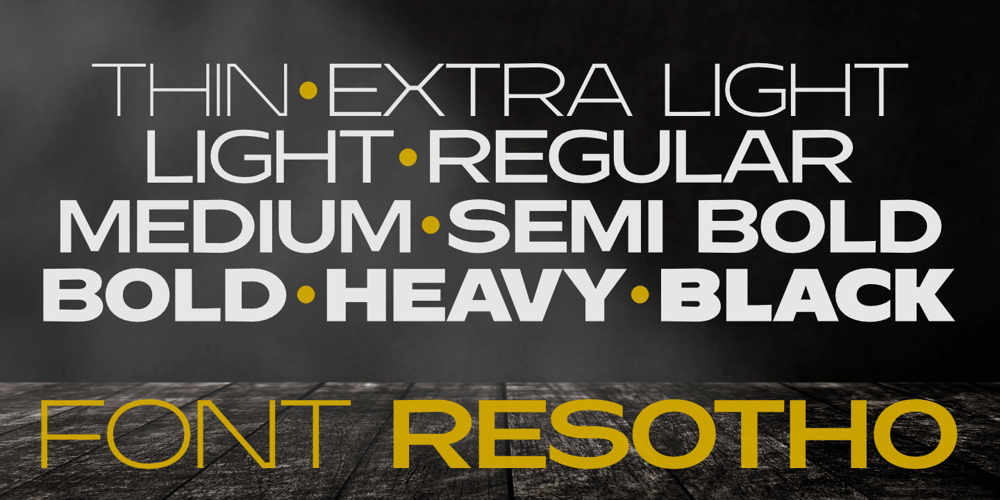
Resotho Font Family was designed by Grzegorz Łuksza and published by Glukfonts. Resotho contains 18 styles and family package options. Resotho is a geometric sans serif (uppercase) family. It comes in 18 weights, 9 uprights and 9 italics. Perfect for graphic design, branding, packaging design but very versatile. Language support covering Western, South, and Central Europe. The Extralight & Extralight Italic weights are free of charge.